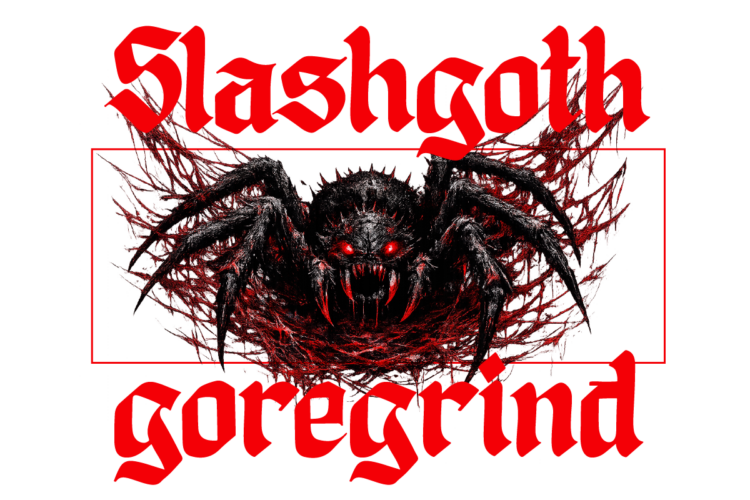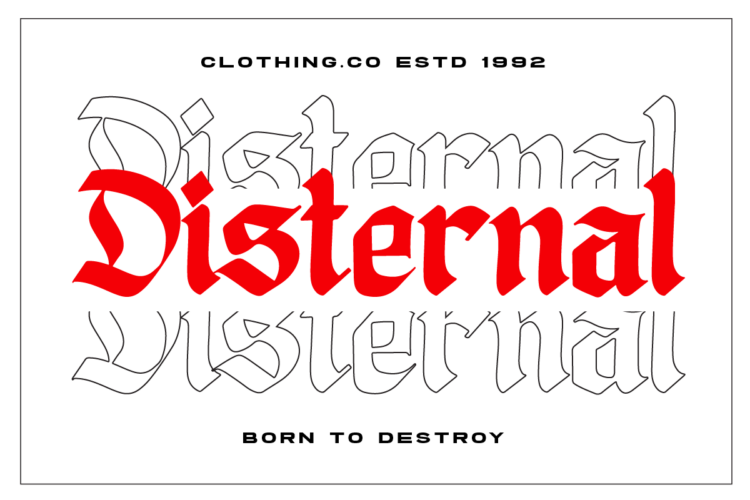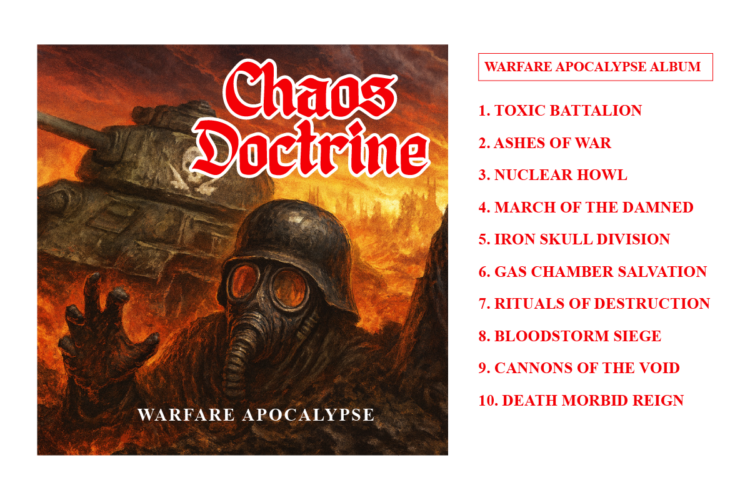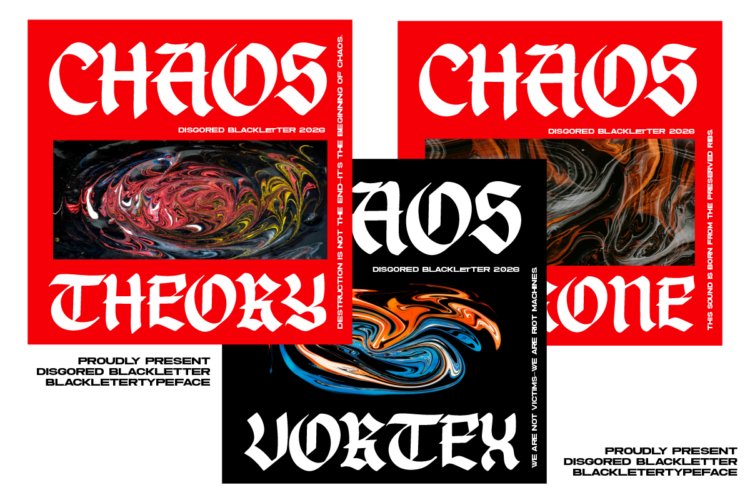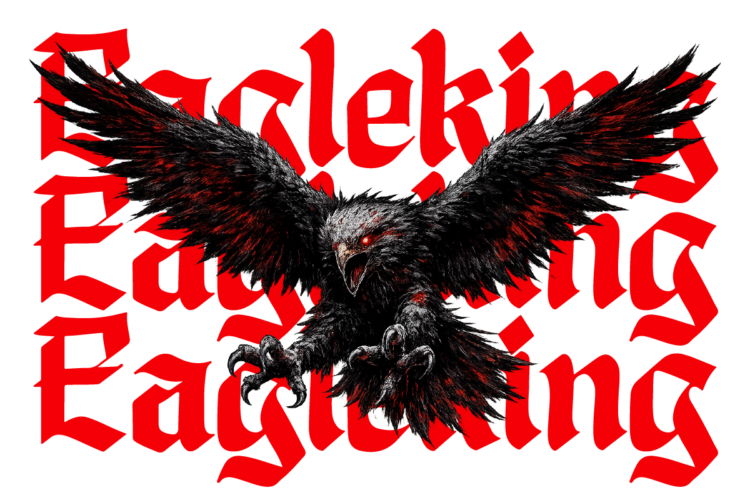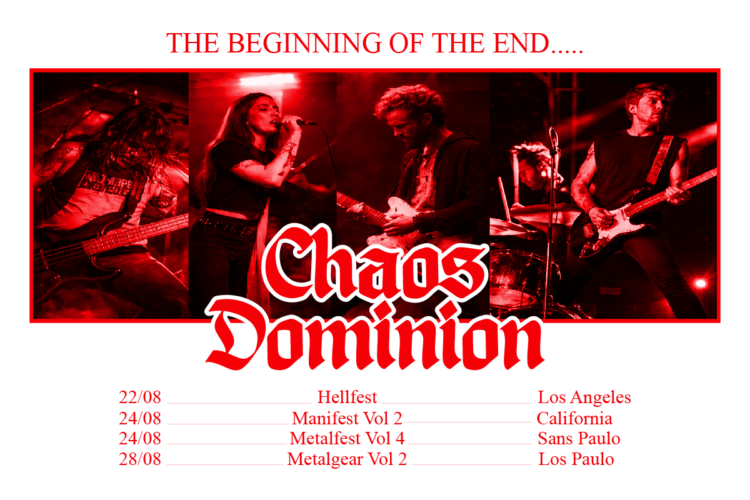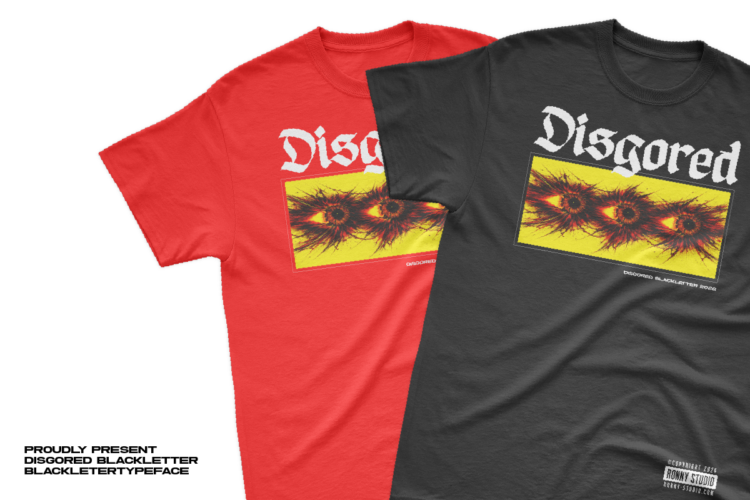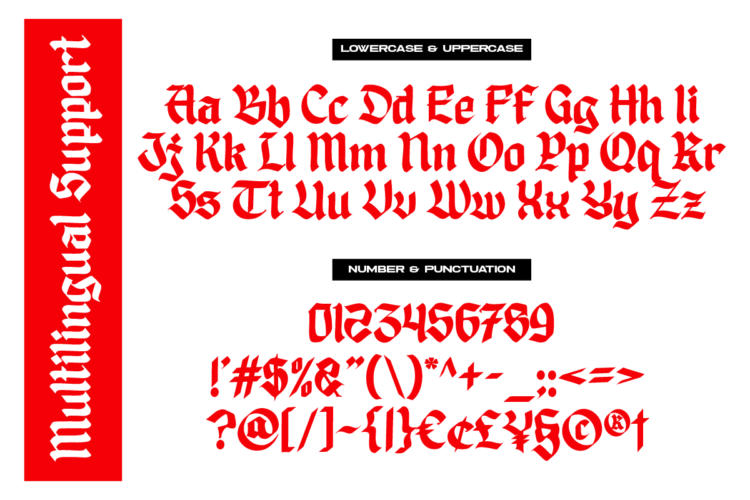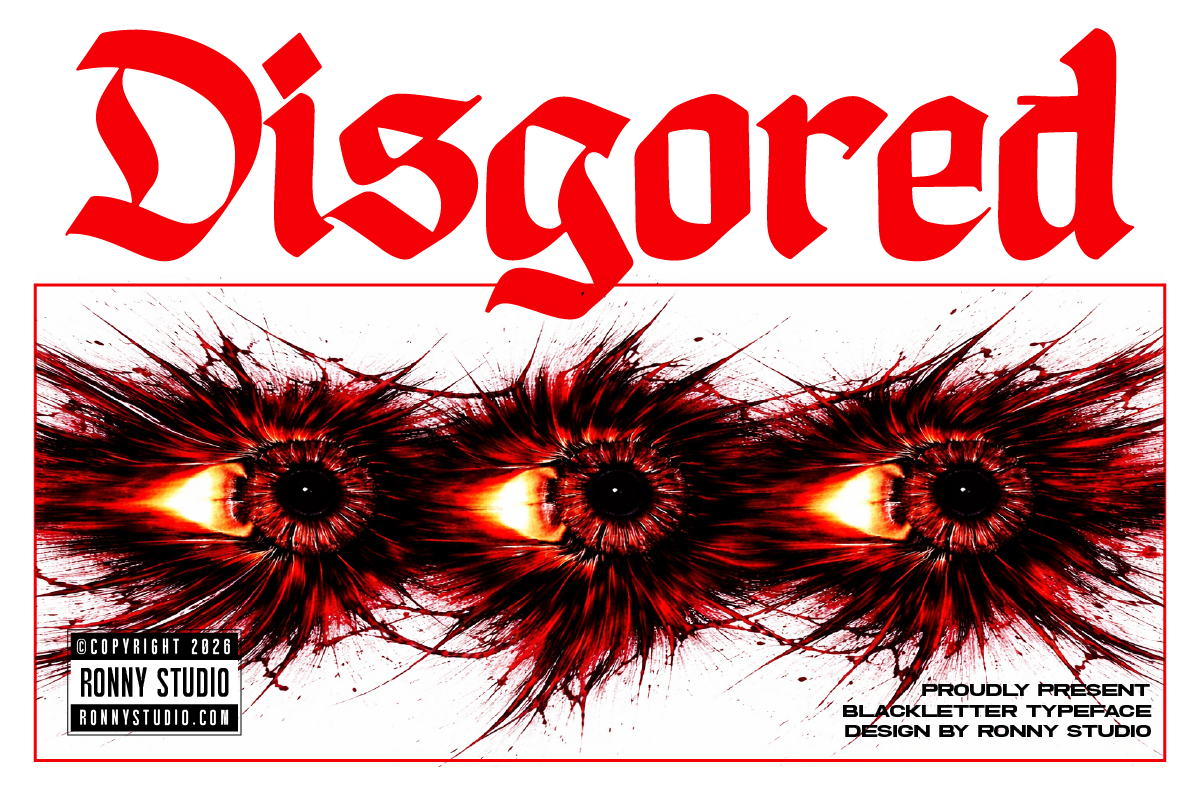
DISGORED is a hardcore blackletter display font built for bold, aggressive, and dark typography. With sharp gothic letterforms and a strong underground attitude, this typeface is perfect for designers who want a raw, powerful look inspired by metal culture, punk visuals, streetwear branding, and extreme poster art.
Ideal for band logos, gig posters, album covers, merch designs, apparel branding, tattoo-style lettering, and edgy graphic projects, DISGORED delivers a commanding visual impact in both digital and print use.
✅ Features
– Uppercase & Lowercase
– Numbers, Symbols & Punctuation
– Multilingual Support
🔥 Perfect For
Metal / Hardcore Band Logo, Blackletter Branding, Gothic Poster, Streetwear Design, Tattoo Lettering, Album Cover, Flyer, Zine Artwork, Dark Typography Projects.